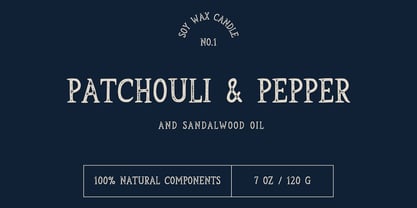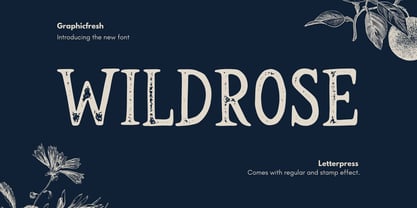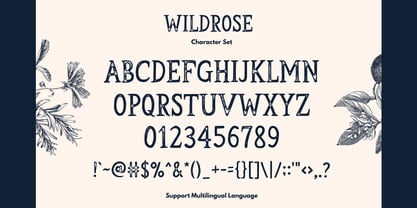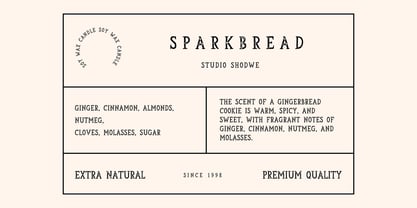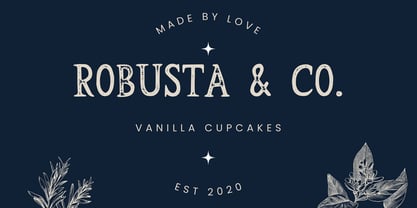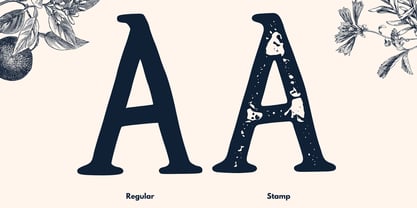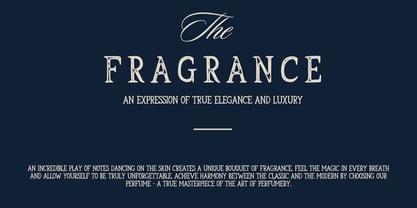
Wildrose
by Graphicfresh
The Wildrose Font Family was designed by Muhammad Husni Haikal and published by Graphicfresh. Wildrose contains 4 styles and family package options. More about this family
This font is a hand-crafted serif typeface that embodies a vintage and letterpress aesthetic. Its design is inspired by the classic elements of serif fonts, blending them seamlessly with the uniqueness of handwritten styles. This font is perfect for projects that require a touch of nostalgia and sophistication, making it ideal for branding, editorial design, and elegant packaging.